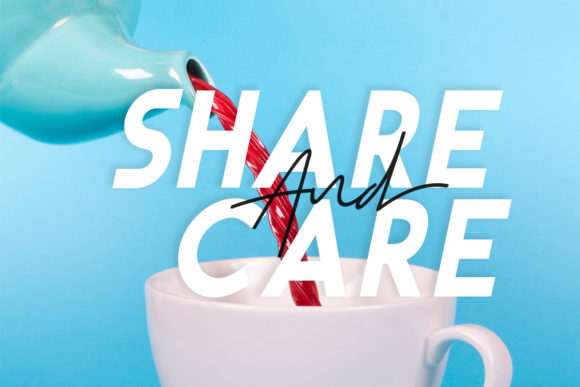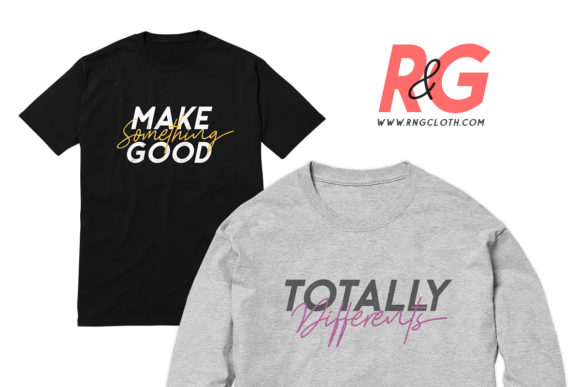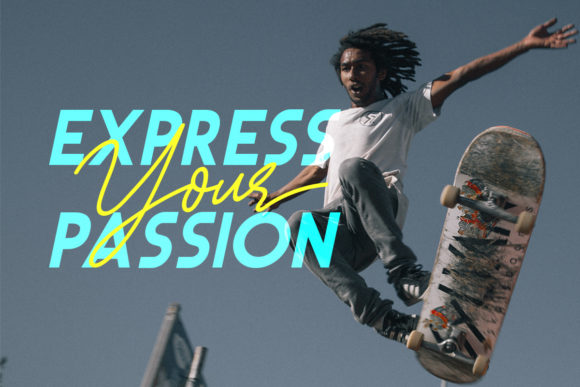
Introduction to Big Reputation Duo Font
The Big Reputation is an amazing font duo.
It includes two best selling fonts in an italic style These fonts can be combined perfectly to give your design an unique look.